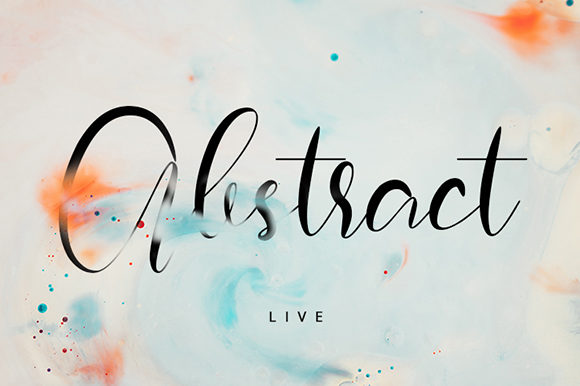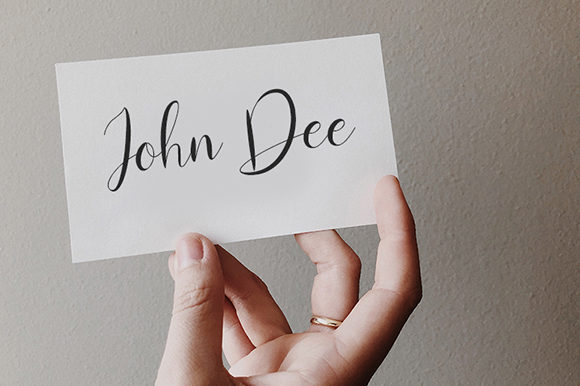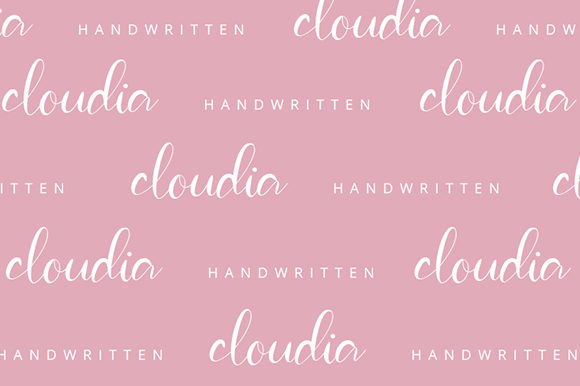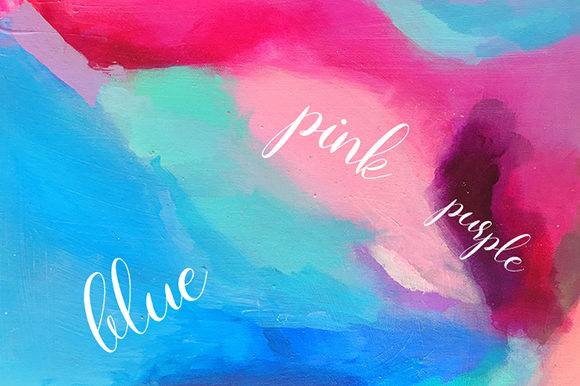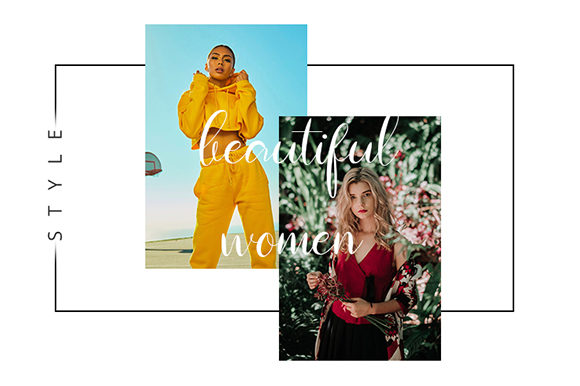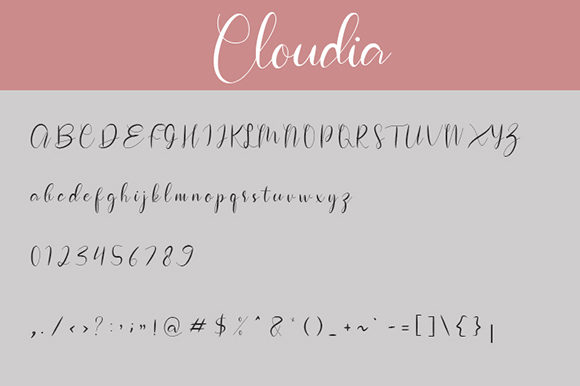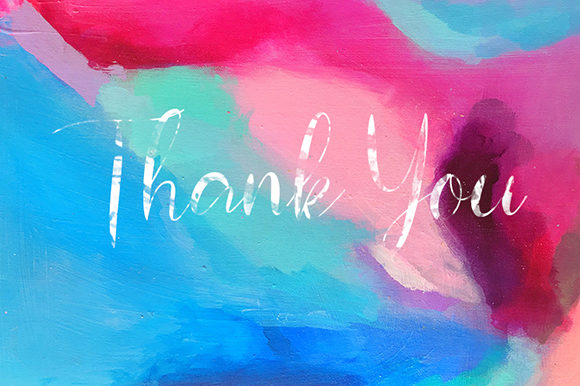
HomeScript FontsCloudia Font Script Fonts Cloudia Font FacebookXPinterestWhatsApp Cloudia Font Poster 2 Cloudia Font Poster 3 Cloudia Font Poster 4 Cloudia Font Poster 5 Cloudia Font Poster 6 Cloudia Font Poster 7 Cloudia Font Poster 8 About Cloudia Font Cloudia is a fun and sweet handwritten font with a playful vibe. Get inspired by its unique charm. DOWNLOAD NOW People also explored Deylan Font Camping Doodle Font Rotten Burg Font Struggle Stories Font Roxfranks Font Smurrie Vacation Font Amanah Font The Wood Font 332 0 TagsCloudia Font Previous articleVintage FontNext articleFlorista Font LEAVE A REPLY Cancel reply Comment: Please enter your comment! Name:* Please enter your name here Email:* You have entered an incorrect email address! Please enter your email address here Website: Save my name, email, and website in this browser for the next time I comment. Personal Use Free Beat My Guest Personal Use Free Read more about this font The Moshbusther Personal Use Free Read more about this font Cheese Matcha Font Personal Use Free Read more about this font Mallvirra Personal Use Free Read more about this font BLOG Top 10 Handwritten Fonts That Elevate Your Designs Top 10 Handwritten Fonts That Will Elevate Your Designs Handwritten fonts bring a warm, personal touch to every creative project. Whether you're designing logos, invitations,... Best Fonts for YouTube Videos: Make Your Thumbnails Stand Out Exploring Font Trends 5 Fonts That Will Dominate Design Trends in 2026